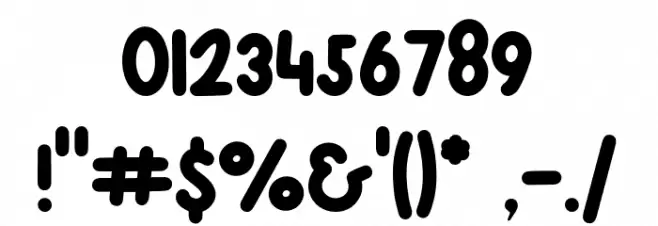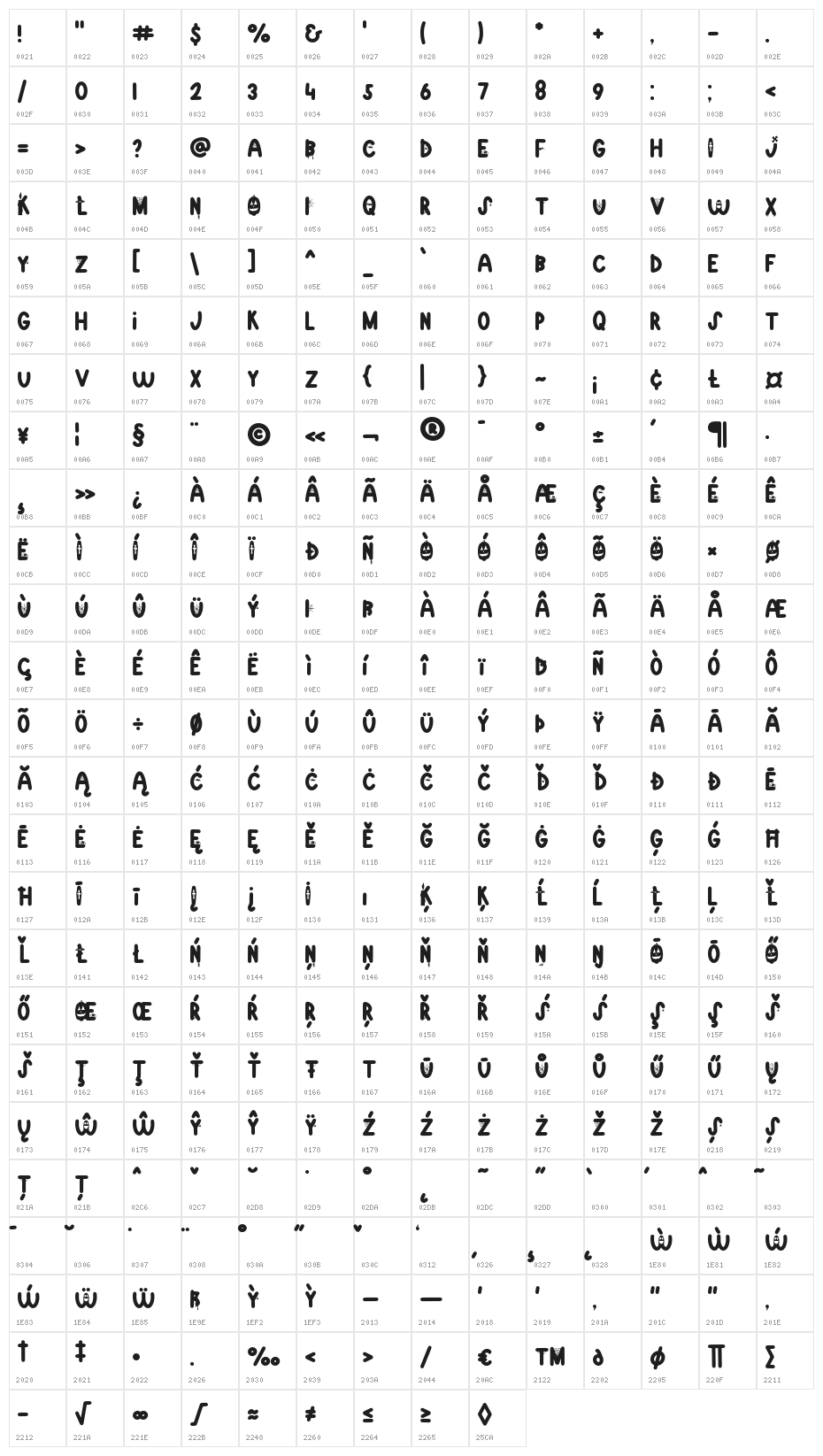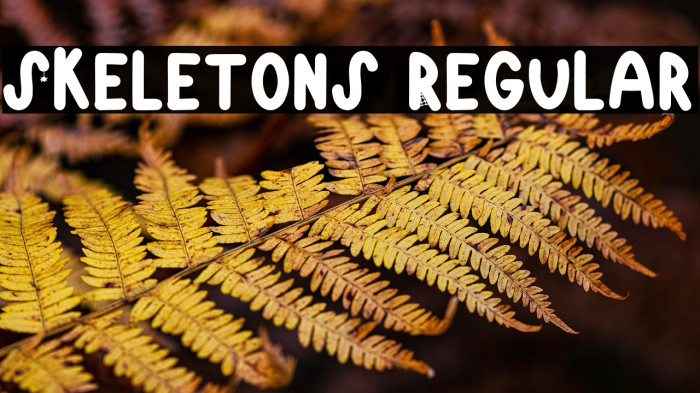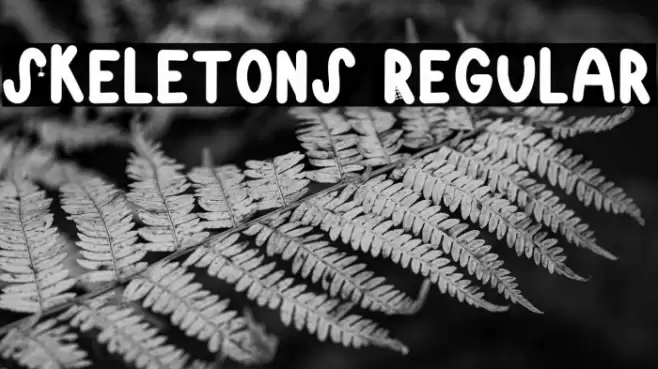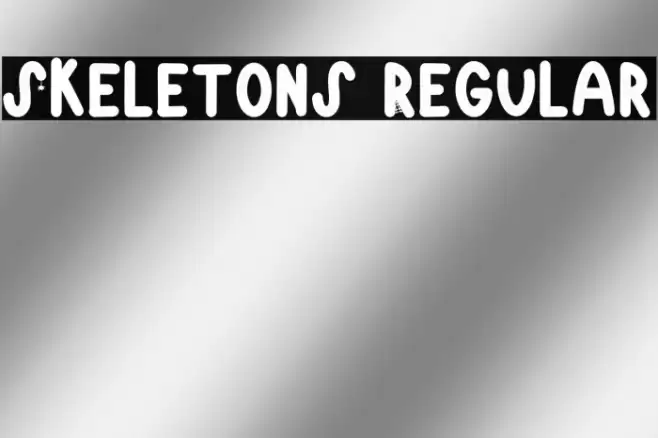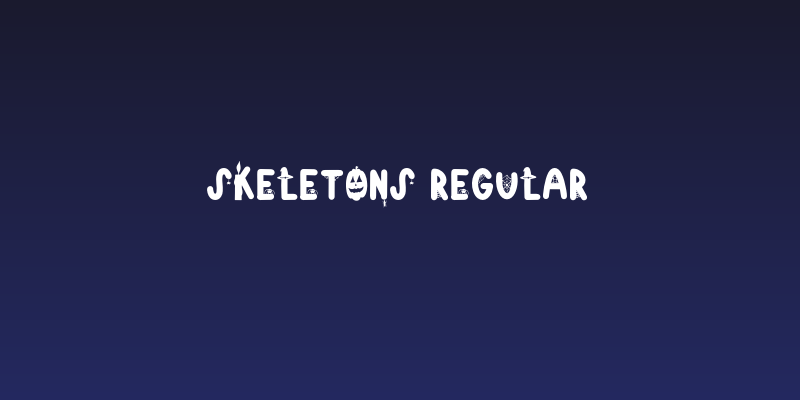
Skeletons Regular Font
Skeletons Regular Description
This playful and spooky font features a Halloween-inspired design with letters that incorporate elements like spider webs, ghosts, and bats. The characters are bold and rounded, with a whimsical touch that makes them perfect for festive occasions. The uppercase and lowercase letters maintain a consistent style, while numbers and special characters are designed to match the overall theme. The font's unique and decorative elements make it stand out, adding a fun and eerie vibe to any project.